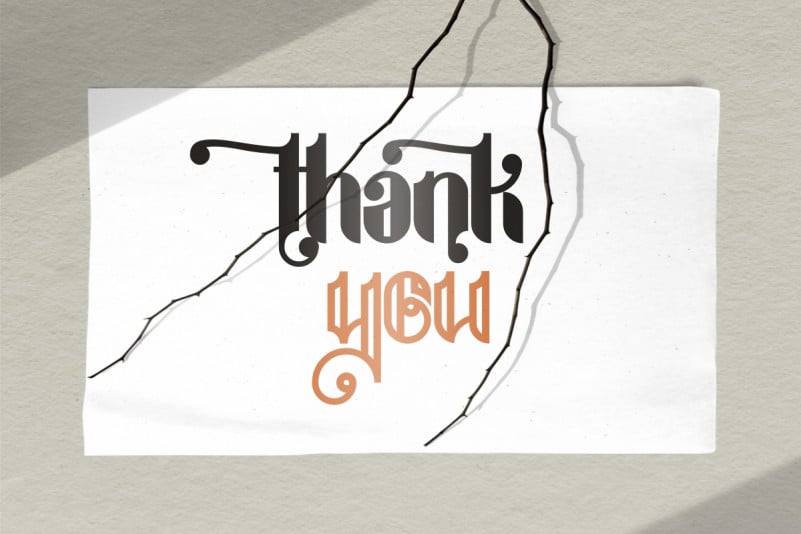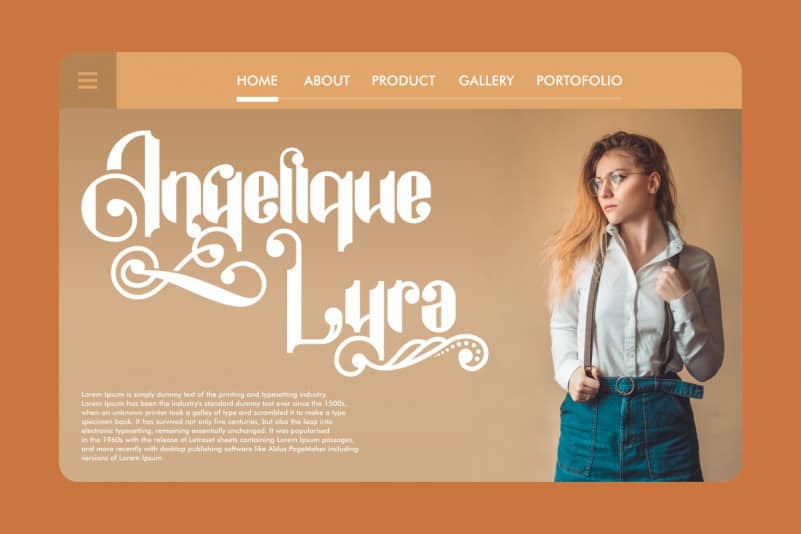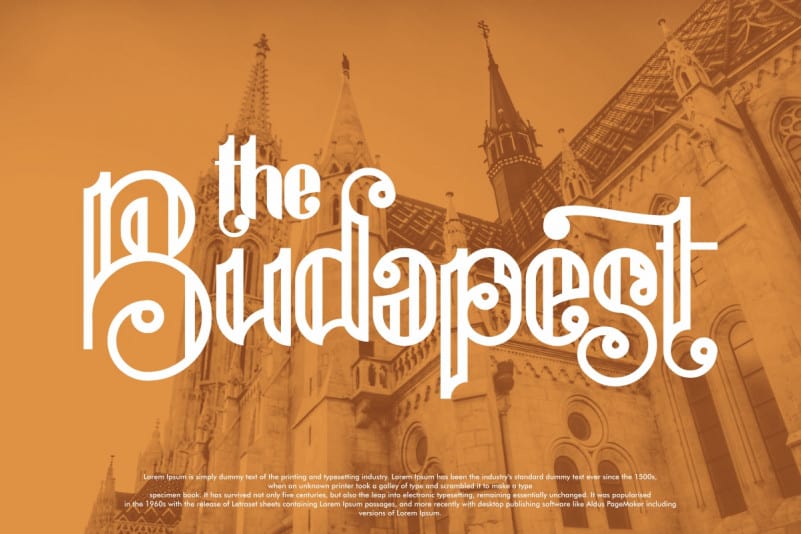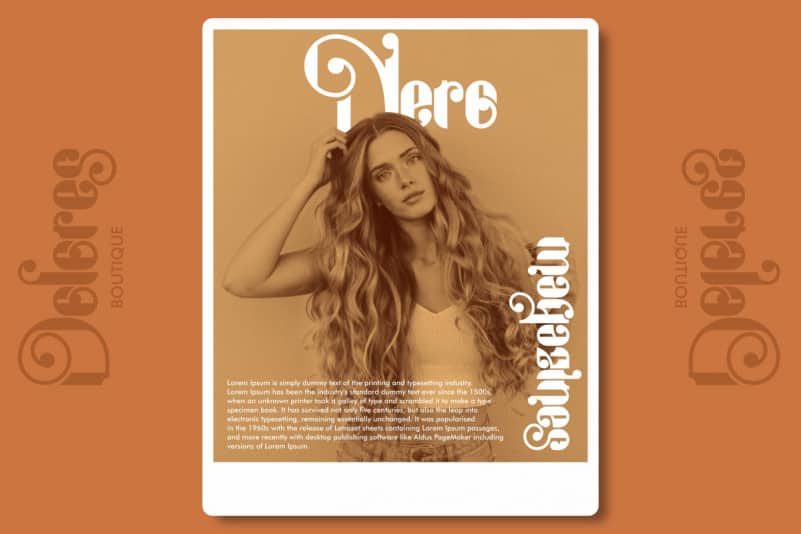
RageSoul Brush Font
RageSoul Brush Font is a handmade serif display font “Victorian” handlettering, which is combining modern and classic typography with some look. This font is crafted carefully in every its single letter so we can make sure it has old-fashioned serif display font with Vintage theme. On this font, you will find two styles : Reguler and Outline. You can also combine these two style like we did on the preview test font cover.
RageSoul Font includes full set of Uppercase and Lowercase Basic Characters, Numerals and Punctuation. Also it contains ligatures to make it flowless and two styles set font characters to perfectly make awesome look that add more aesthetic fonts to perfect your extraordinary project.